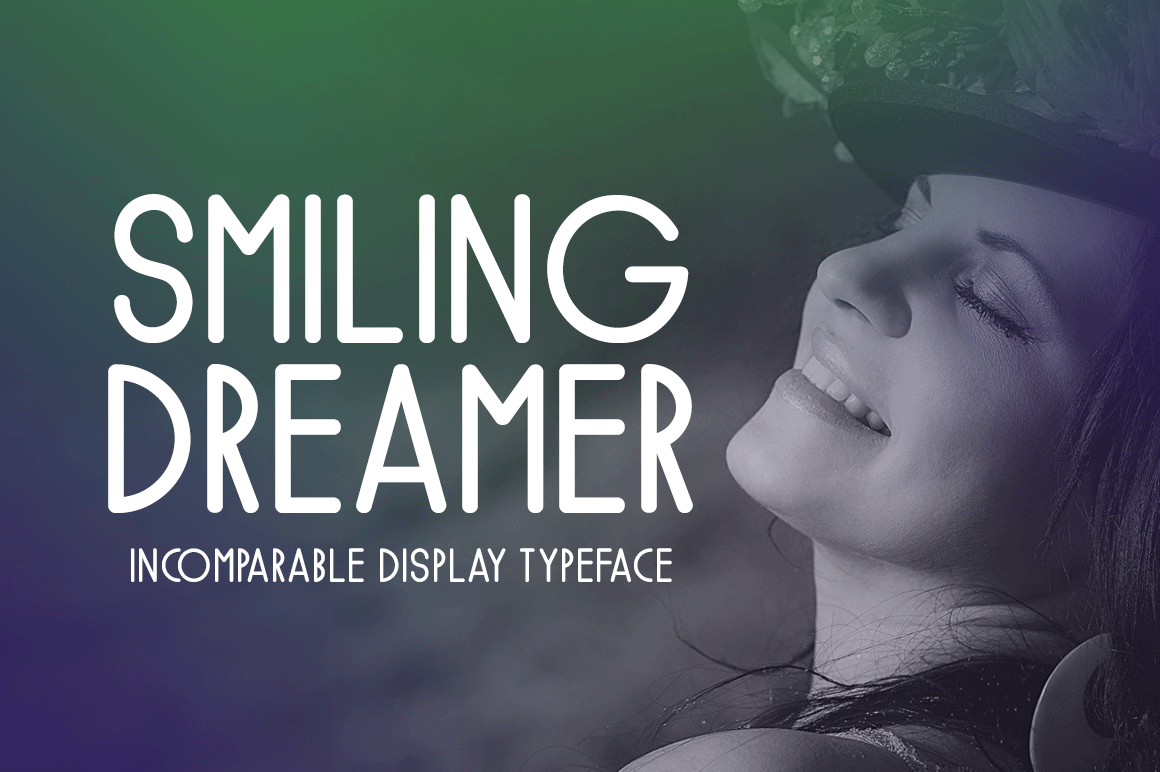
Smiling Dreamer Typeface
Introducing Smiling Dreamer!
Smiling Dreamer is a brand new display font. Smiling Dreamer is perfectly suited for stationery, logos, t-shirt, paper, print design, website header, photo frame, flyer, music cover, poster, image slider, and much more.
Includes a range of multilingual support